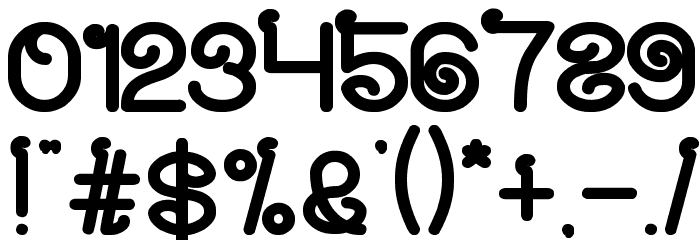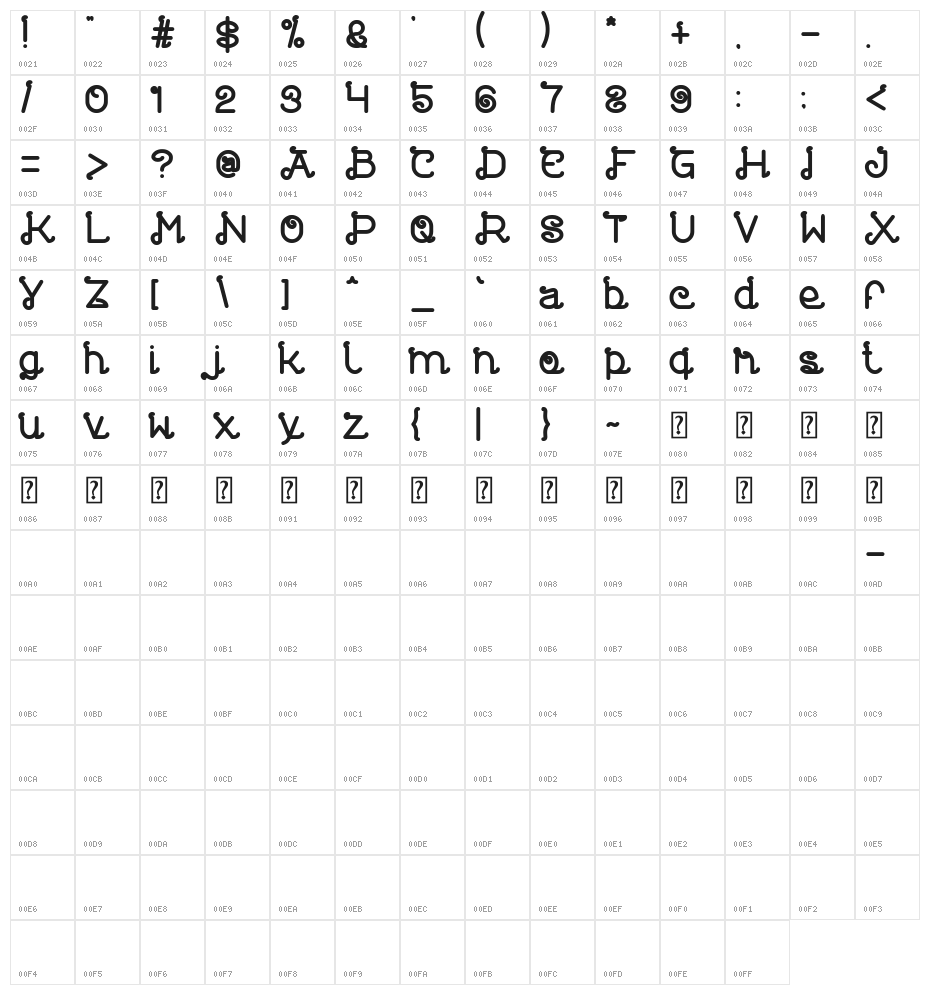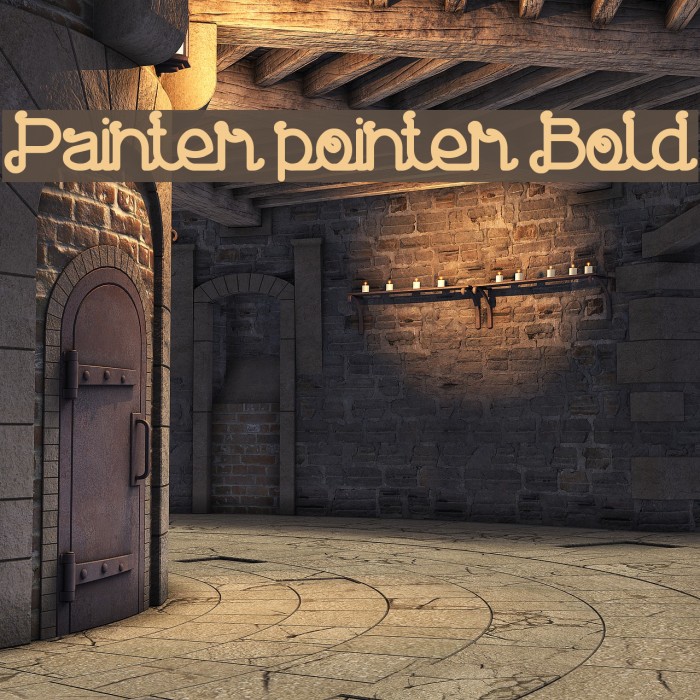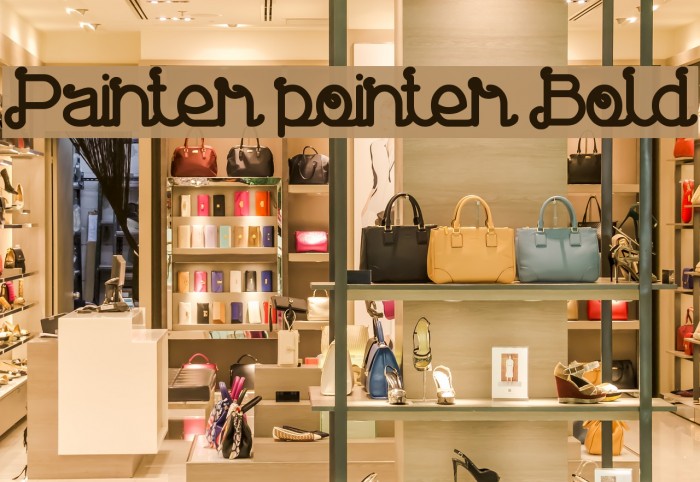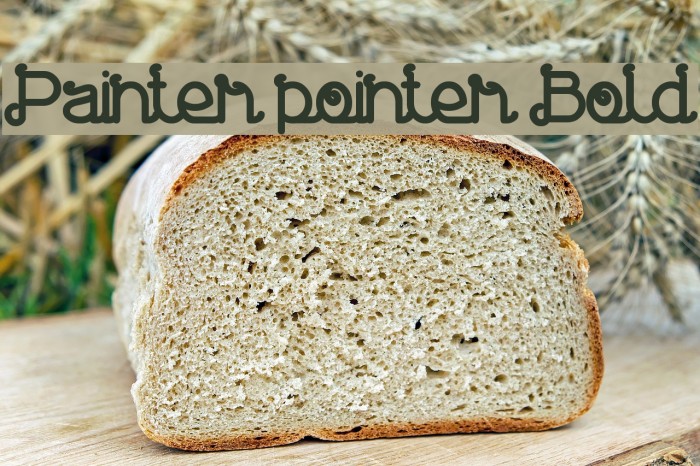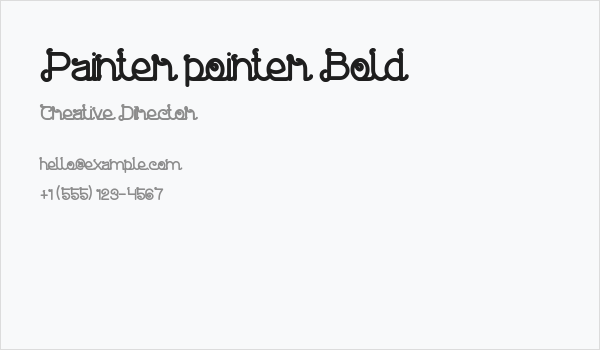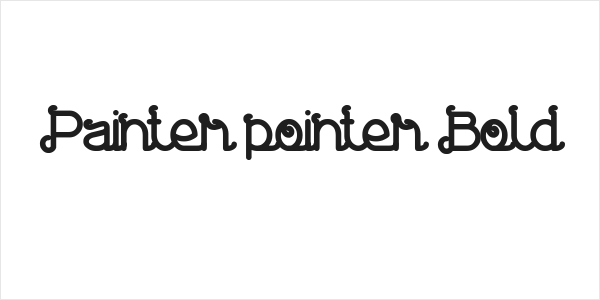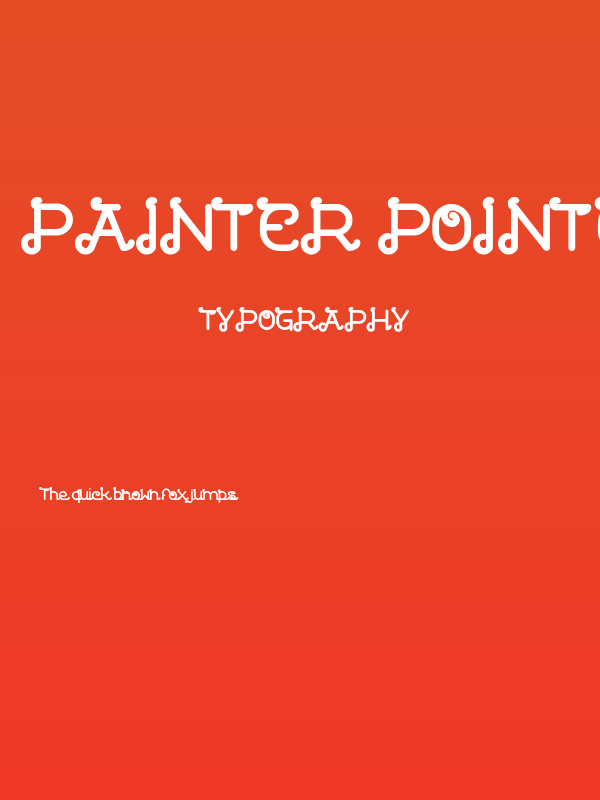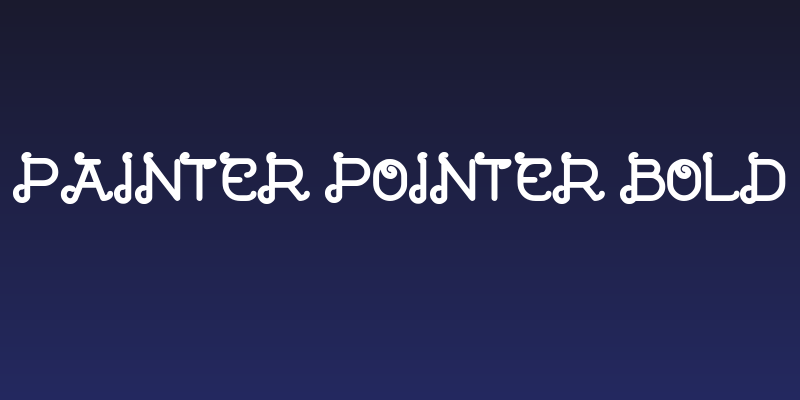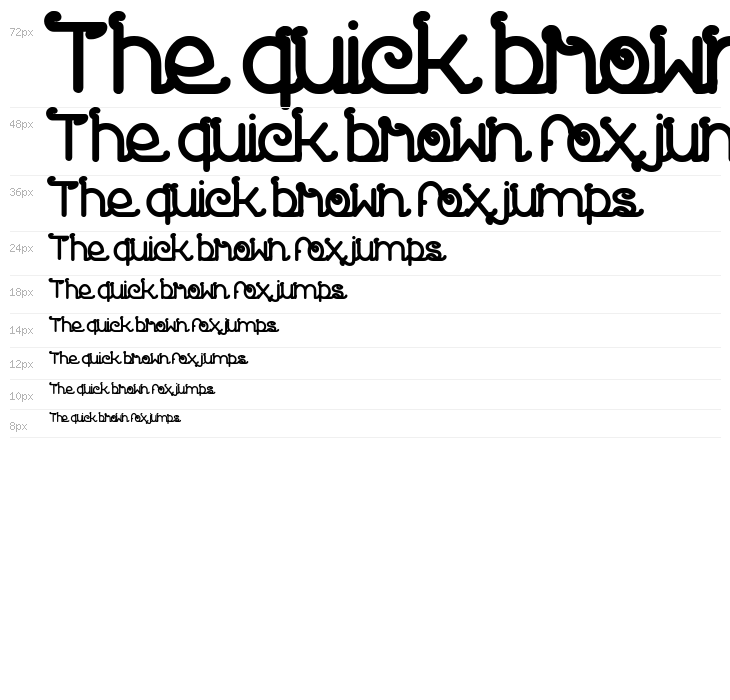
Painter pointer Bold Font
Painter pointer Bold Description
This font features a unique and playful design with rounded, looping terminals that give it a whimsical and artistic flair. The characters are bold and have a consistent stroke width, creating a strong visual impact. The uppercase and lowercase letters maintain a cohesive style, with the lowercase letters mirroring the playful loops of the uppercase. Numbers and special characters follow the same design principles, ensuring uniformity across all glyphs. This font's distinctive style makes it stand out, perfect for creative and expressive projects.
PAINTER-POINTER-BOLD UPPERCASE
PAINTER-POINTER-BOLD LOWERCASE
PAINTER-POINTER-BOLD OTHER CHARS
| Overall Style | Playful, Artistic |
| Proposed Projects | Ideal for children's books, creative posters, playful branding, and artistic designs. |